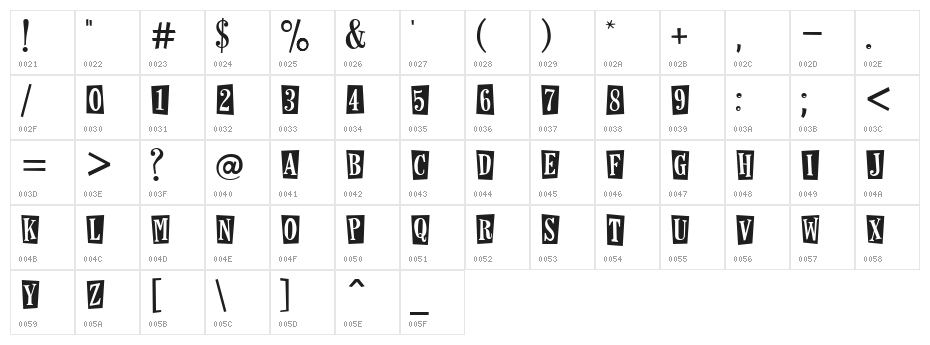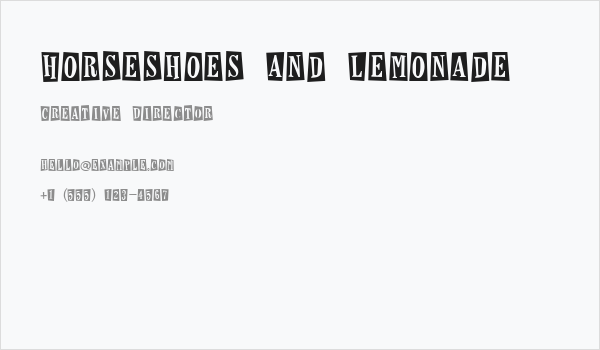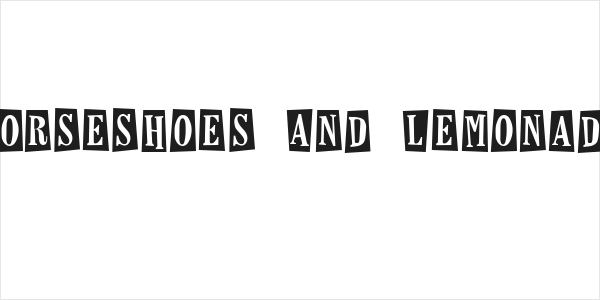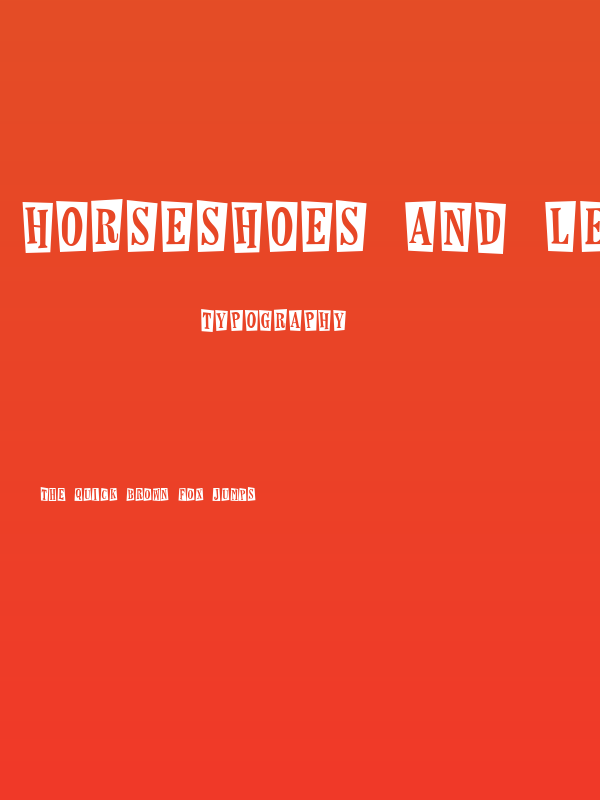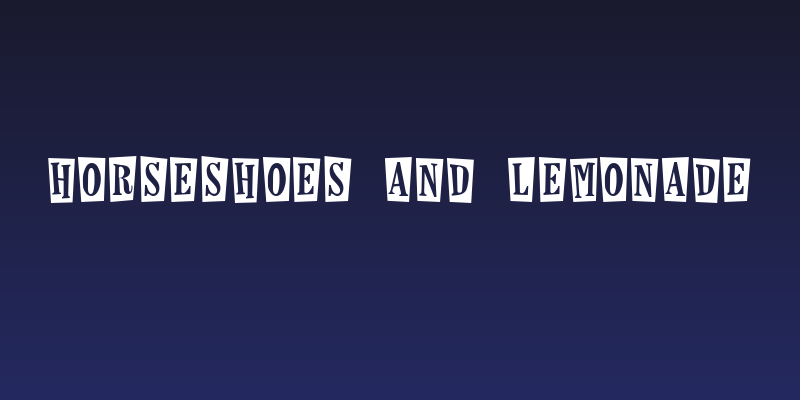
Horseshoes And Lemonade Font
Horseshoes And Lemonade Description
This font features a playful and eclectic style, with each character appearing as if it has been cut from a magazine or newspaper. The letters are bold and slightly irregular, giving them a handcrafted, collage-like appearance. The uppercase and lowercase letters maintain a consistent height, while the numerals and special characters follow the same quirky design. The font's unique style is characterized by its uneven baseline and varying angles, which add to its charm and visual interest. This font is ideal for projects that require a fun and informal touch, making it perfect for creative and artistic endeavors.
| Proposed Projects | Ideal for creative projects such as posters, flyers, and artistic branding. |